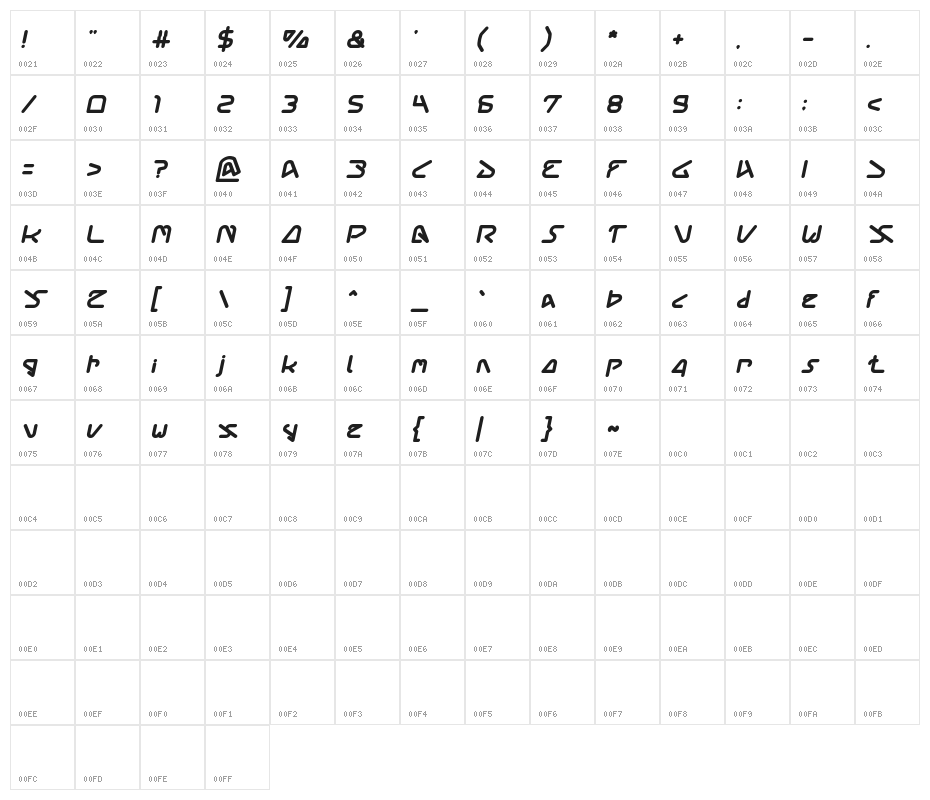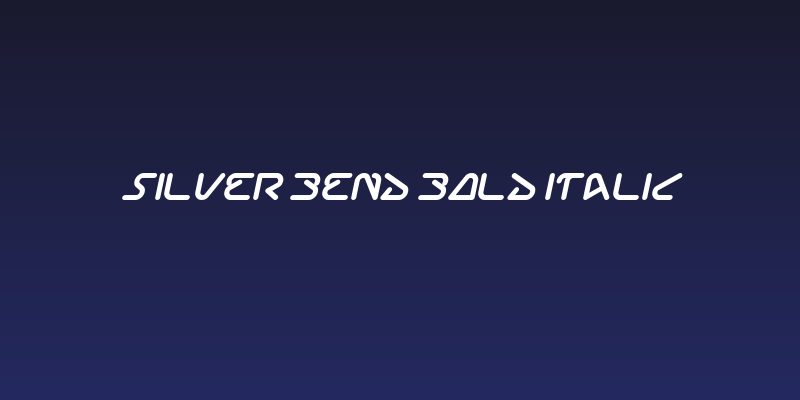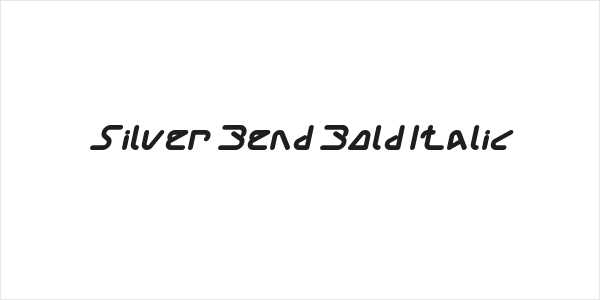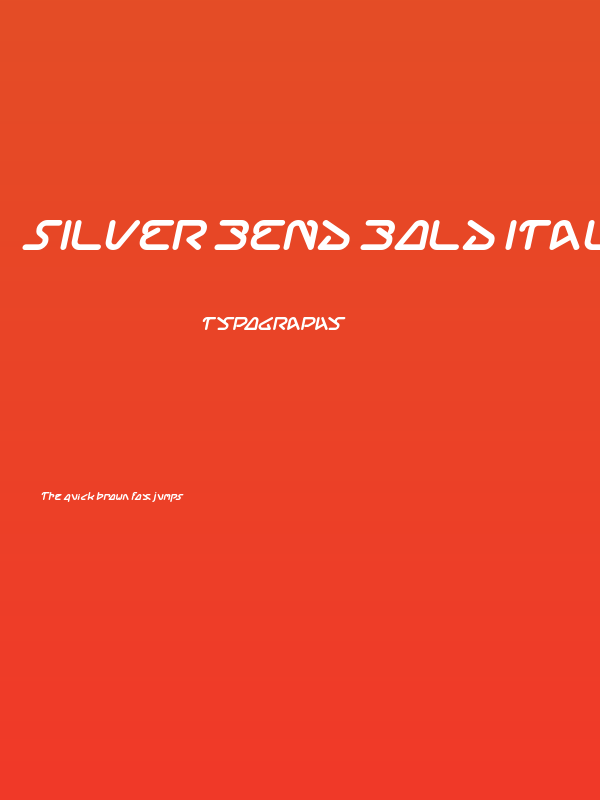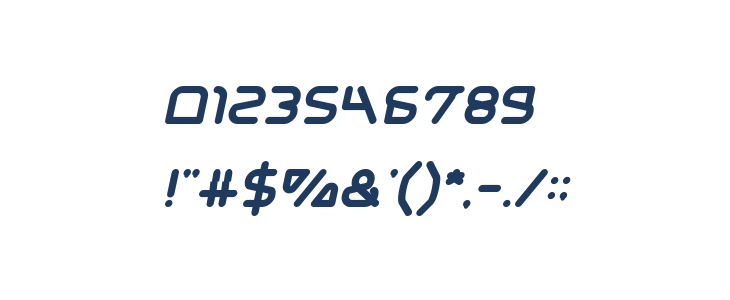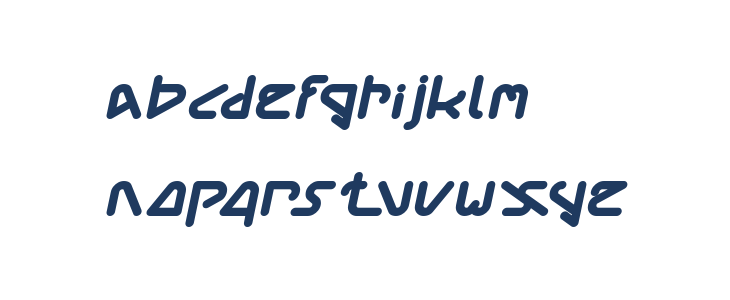
Silver Bend Bold Italic Font
Silver Bend Bold Italic Description
This font features a bold and italicized style with a modern, futuristic aesthetic. The characters are uniquely designed with rounded edges and a consistent thickness throughout, giving them a smooth and fluid appearance. The uppercase and lowercase letters maintain a cohesive look, with slight variations to enhance readability. Numbers and special characters are crafted to match the overall style, ensuring uniformity across all elements. The font's distinctiveness lies in its geometric shapes and the seamless flow of each character, making it ideal for creative and eye-catching designs.
| Overall Style | Futuristic, Geometric |
| Proposed Projects | Ideal for technology branding, futuristic posters, video game titles, and innovative product packaging. |